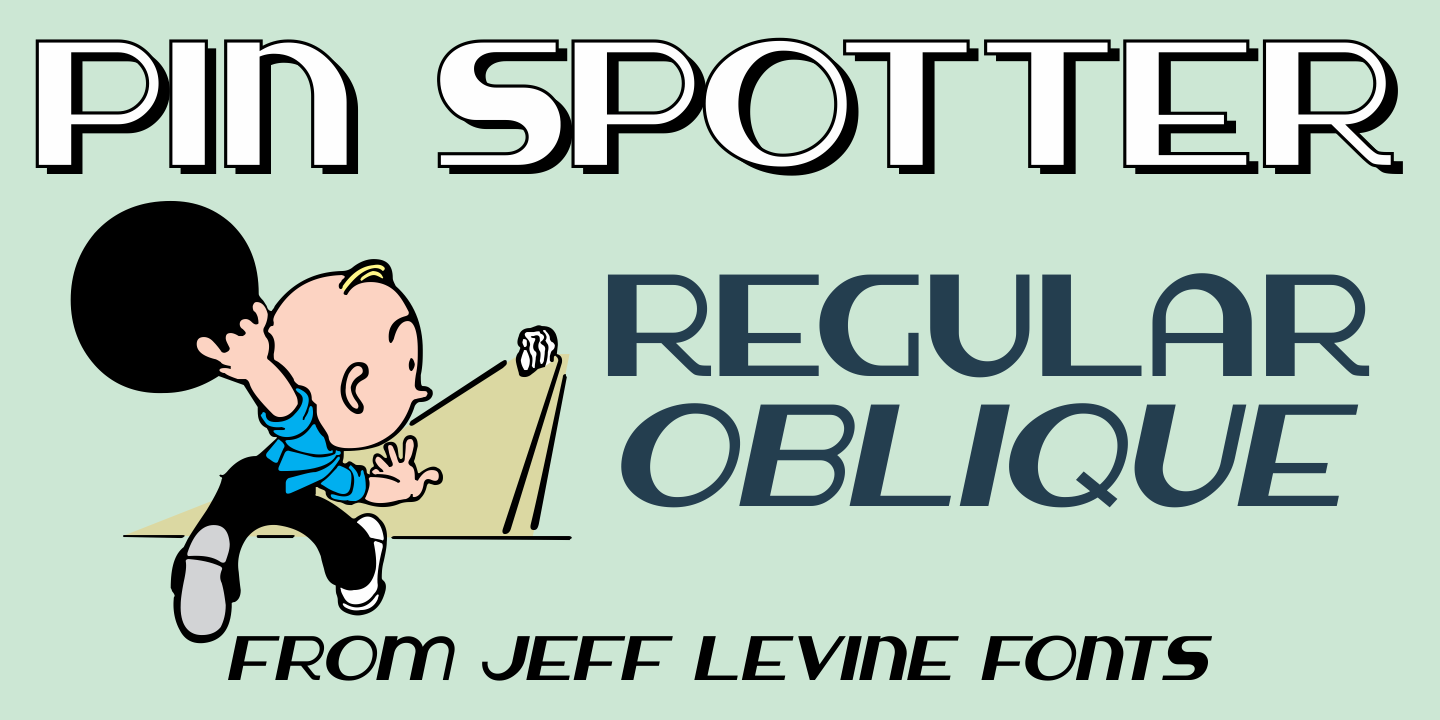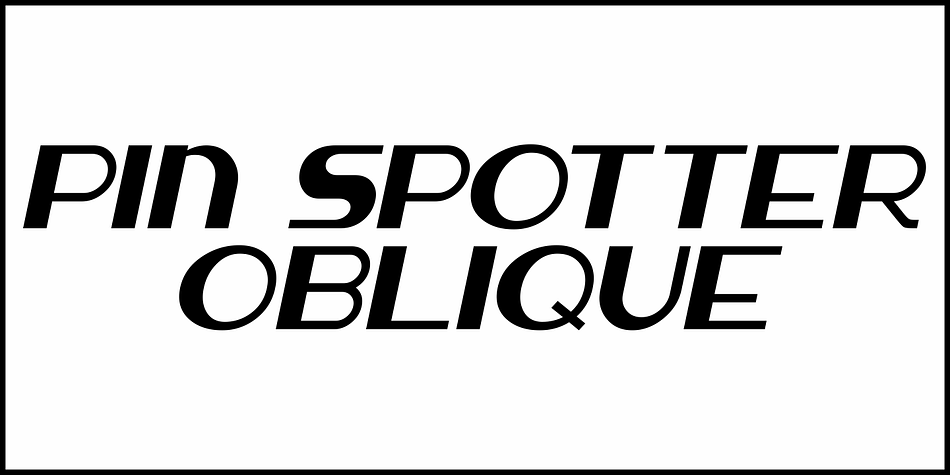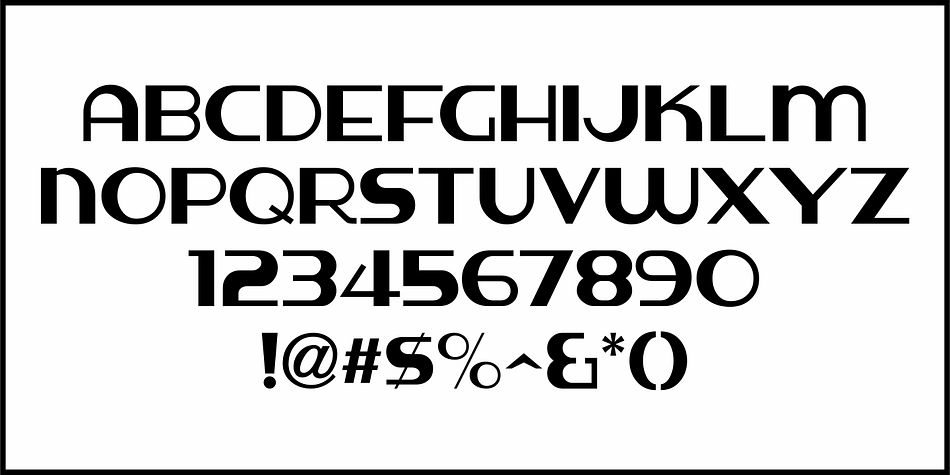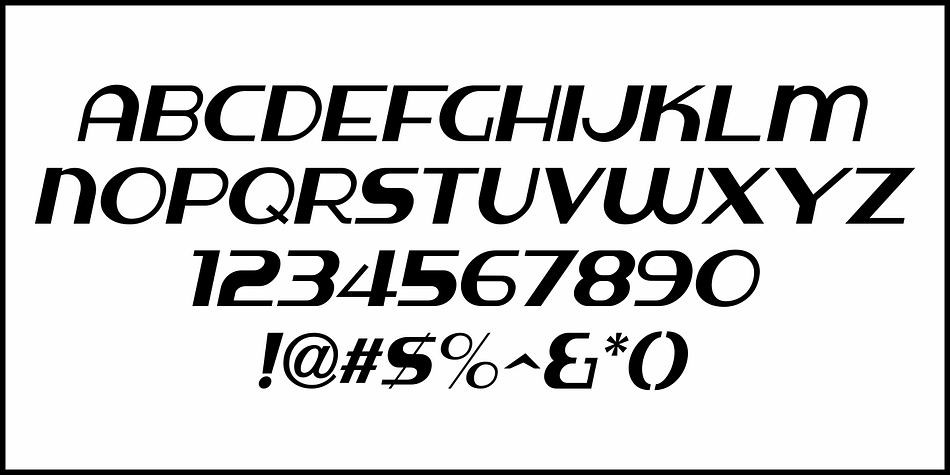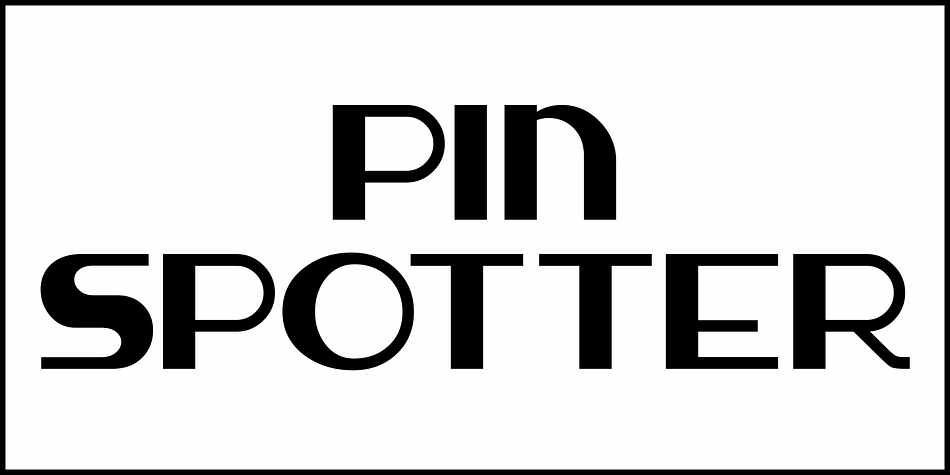
PIN SPOTTER JNL
Designed by Jeff Levine, Pin Spotter JNL is an art deco, display sans and retro font family. This typeface has two styles and was published by Jeff Levine Fonts.
It’s Art Deco “thick and thin”… It’s wide… It’s quirky… It’s a hand lettered sign over the lanes of the Bryant-Lake Bowl – a landmark bowling alley in Minneapolis, Minnesota… and it was spotted in an amazing YouTube video from a “drone tour” of the facility!
The sign inspired the font Pin Spotter JNL which is available in both regular and oblique versions.